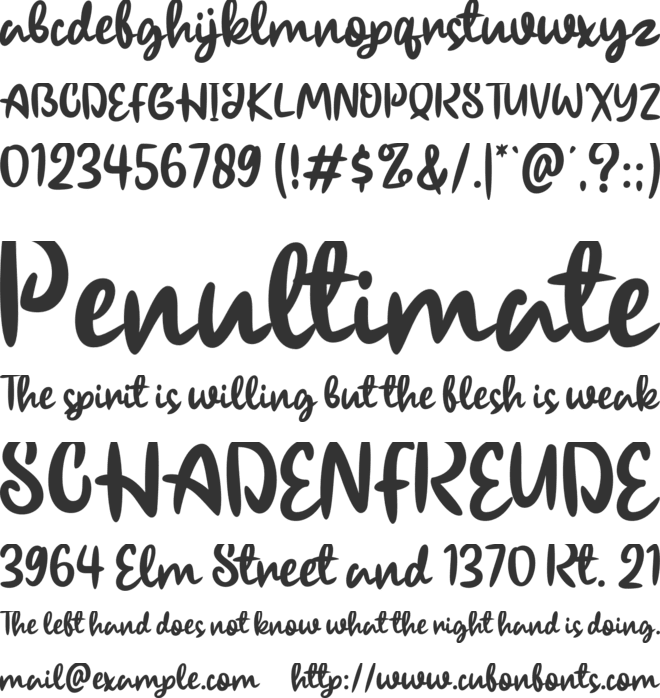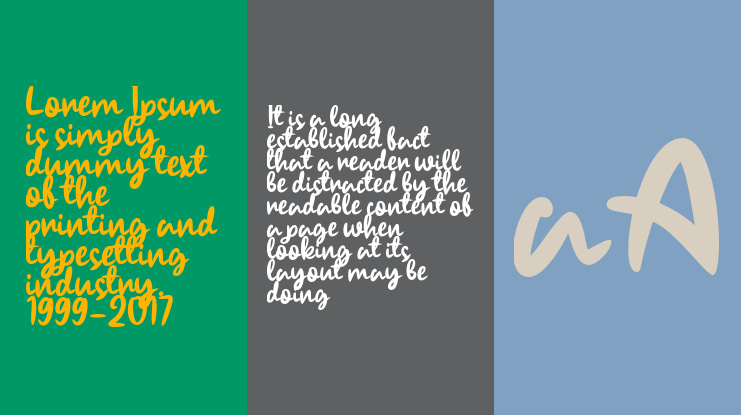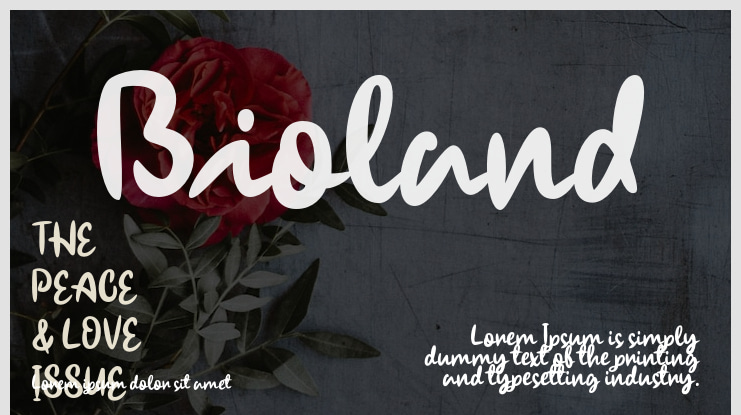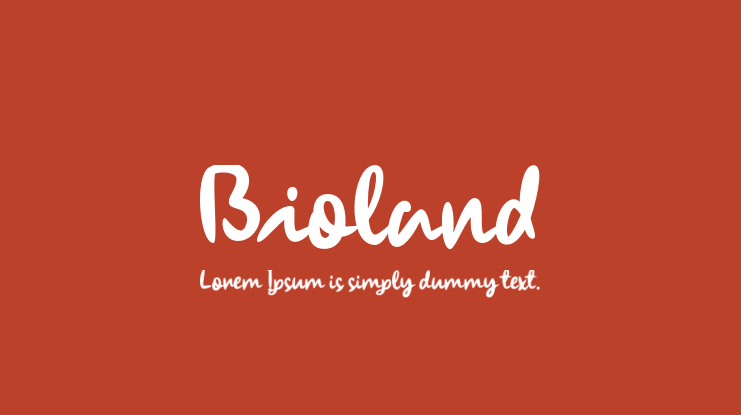
Bioland Font
Discover Bioland - an exquisite script font crafted with genuine hand strokes. Its organic essence radiates an undeniable charm and sophistication, enhancing the allure and authenticity of your designs. With its graceful fluidity, Bioland effortlessly infuses a natural flair into your creative endeavors.